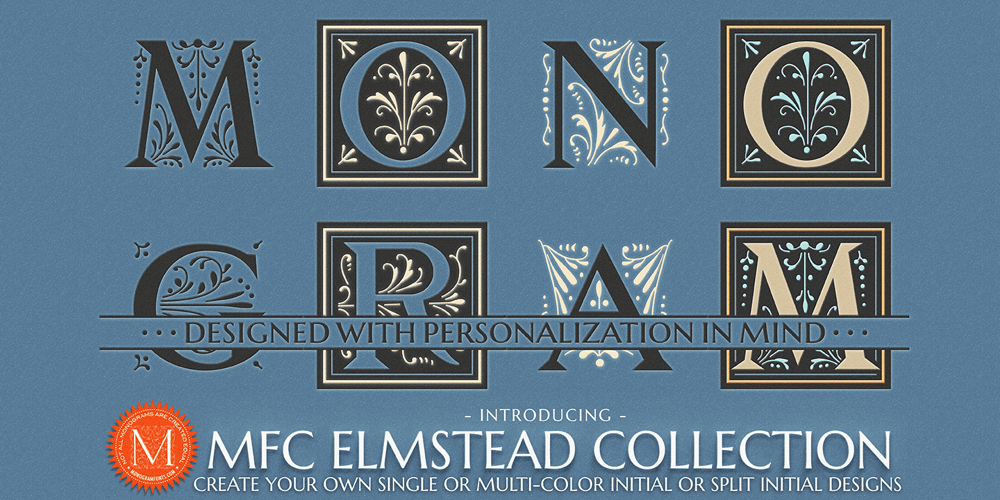
MFC Elmstead Monogram Font Family was designed by Jim Lyles, Brian J. Bonislawsky and published by Monogram Fonts Co.. MFC Elmstead Monogram contains 13 styles and family package options. The source of inspiration for MFC Elmstead Monogram is an initials set from the book “Monograms and Alphabets for Combination” by Dollfus, Mieg & Cie, first published in the 1880’s. We’ve taken the original Cameo styled initials that had a somewhat clumsy weighting and rebuilt the design using the capitals from Marcellus Pro by our sister foundry, Stiggy & Sands. We’ve extended the family by including both a Cameo and Non-Cameo version of the Initials, as well as Chromatic versions that can be layered to colorize the designs. But we couldn’t leave it as just an initial typestyle, so we took it a another step, and created Split Monogram Initials with bar splits & extensions for personalization, with the same chromatic set of layers as the full initials version. For filling in the split, we’ve created a custom limited version of Marcellus Pro, called MFC Elmstead TinyCap, that contains small caps, numerals, and basic punctuation – scaled down and lined up to layer with the MFC Elmstead Split group of fonts. MFC Elmstead Monogram has loads of different ways in which to layer the different fonts in this collection to create unique custom designs. Be sure to take a look at the Gallery tab to view the guidebooks for these fonts and how to use them.